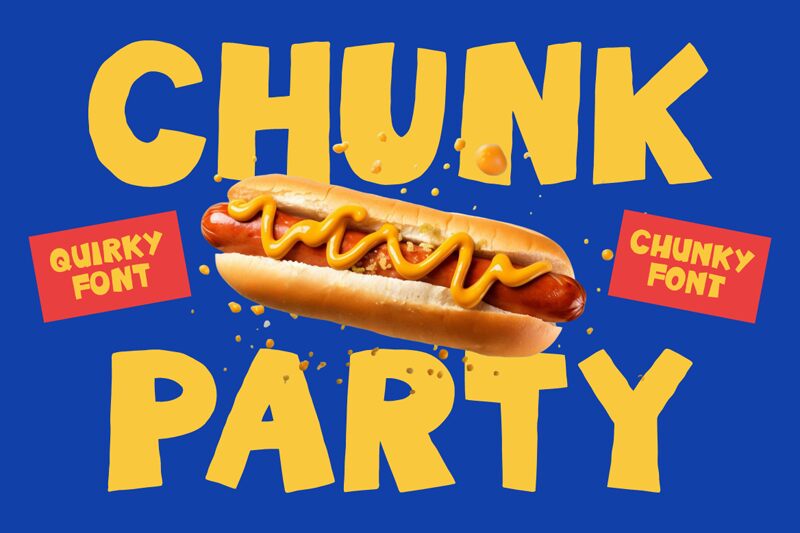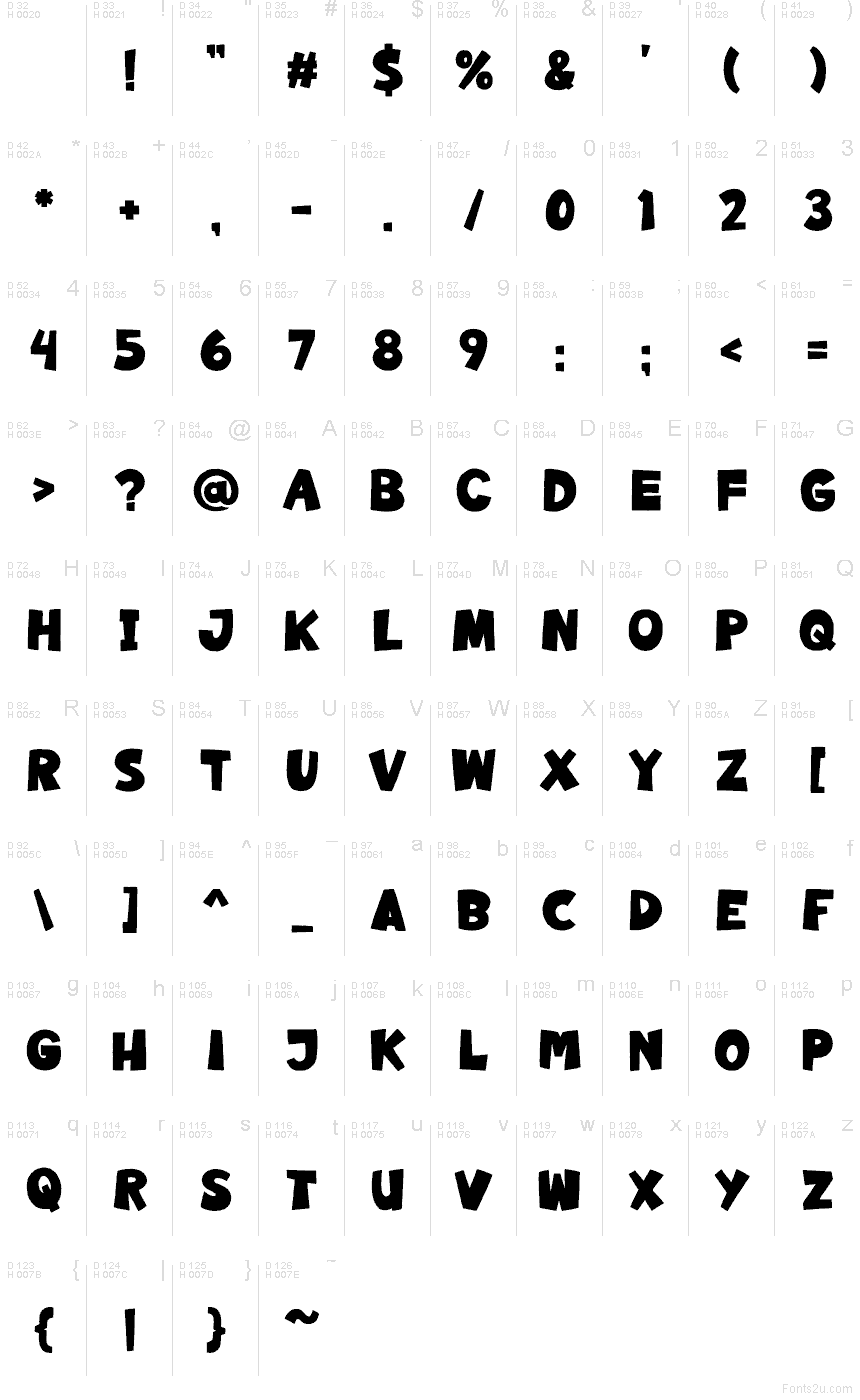
Chunk Party
Chunk Party by Shanaf Studio is a free comic display font with big, blunt caps that feel cut from rubber and nudged slightly off balance. The letters lean into a playful, hand-drawn rhythm, with swollen curves, thick verticals, and uneven tops that keep the texture lively rather than strict.
It fits poster titles, kids' book covers, snack packaging, party flyers, and playful brand marks where short words need a loud, bouncy voice. As a free font, it also suits title cards, merch graphics, and drop-in headlines, especially when you want the caps to feel chunky and friendly instead of slick or geometric.